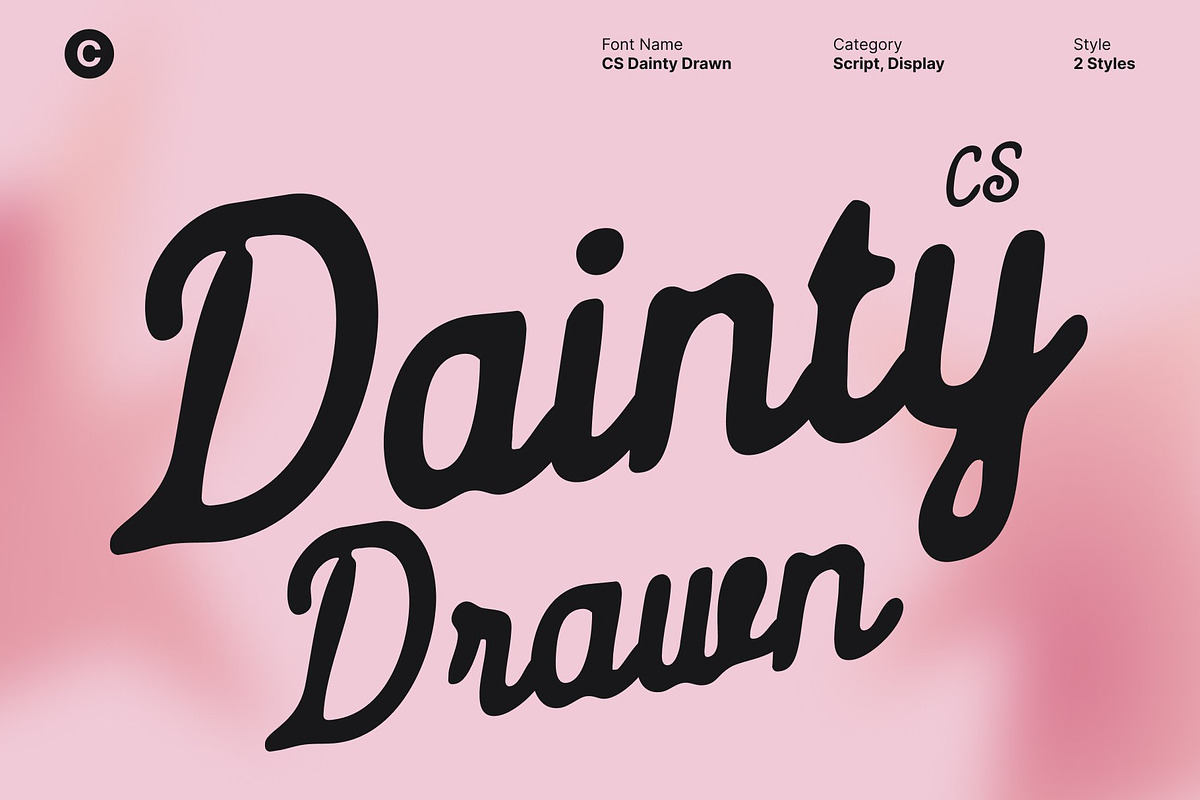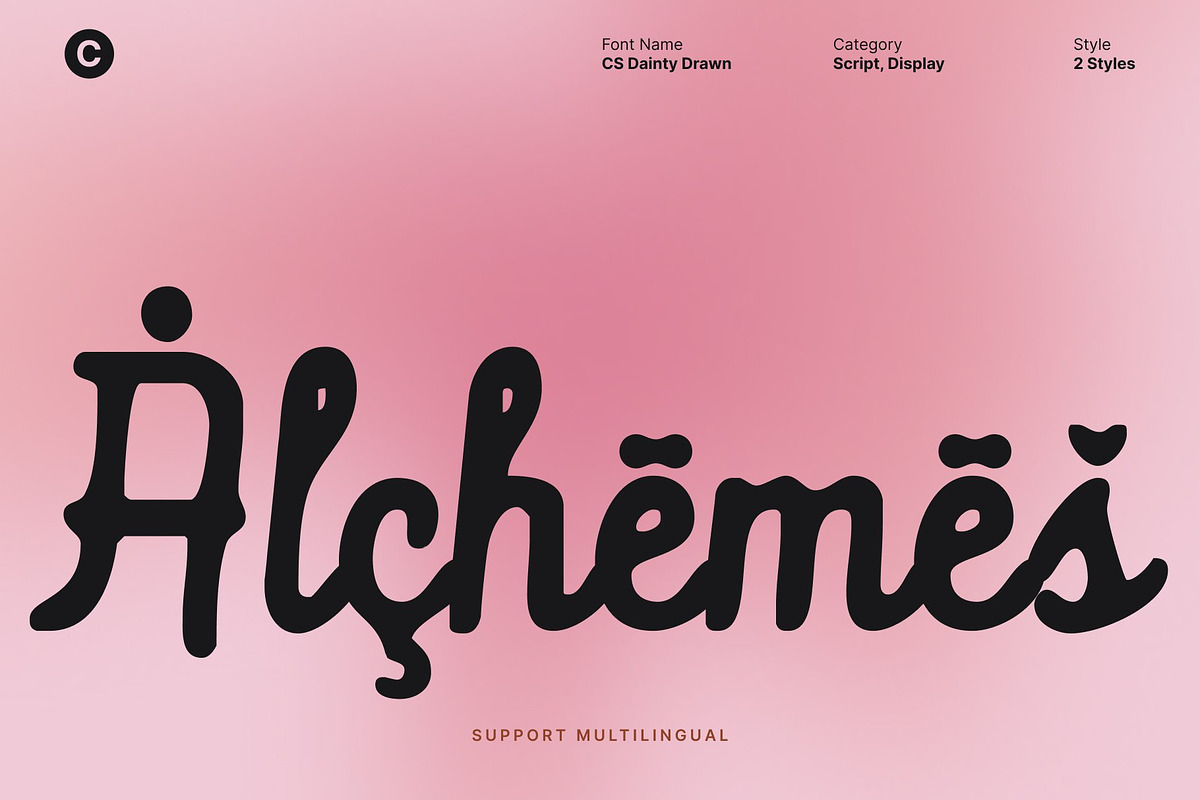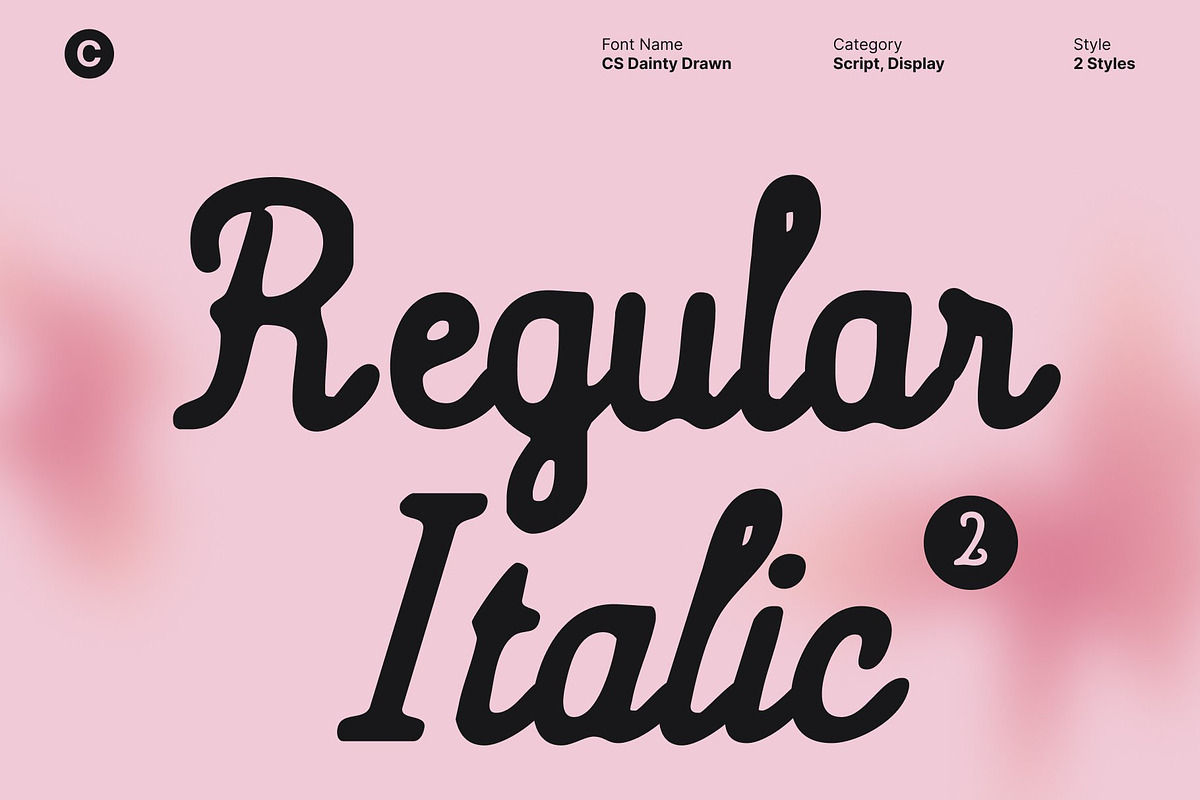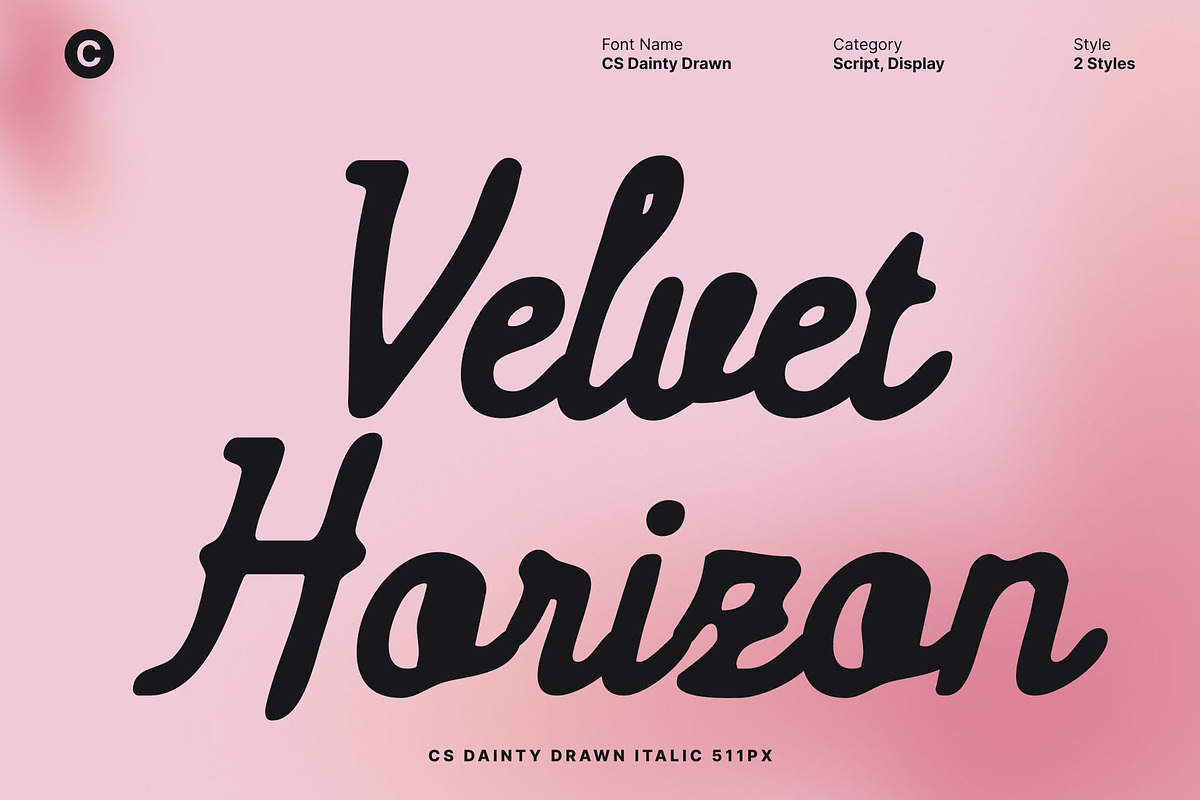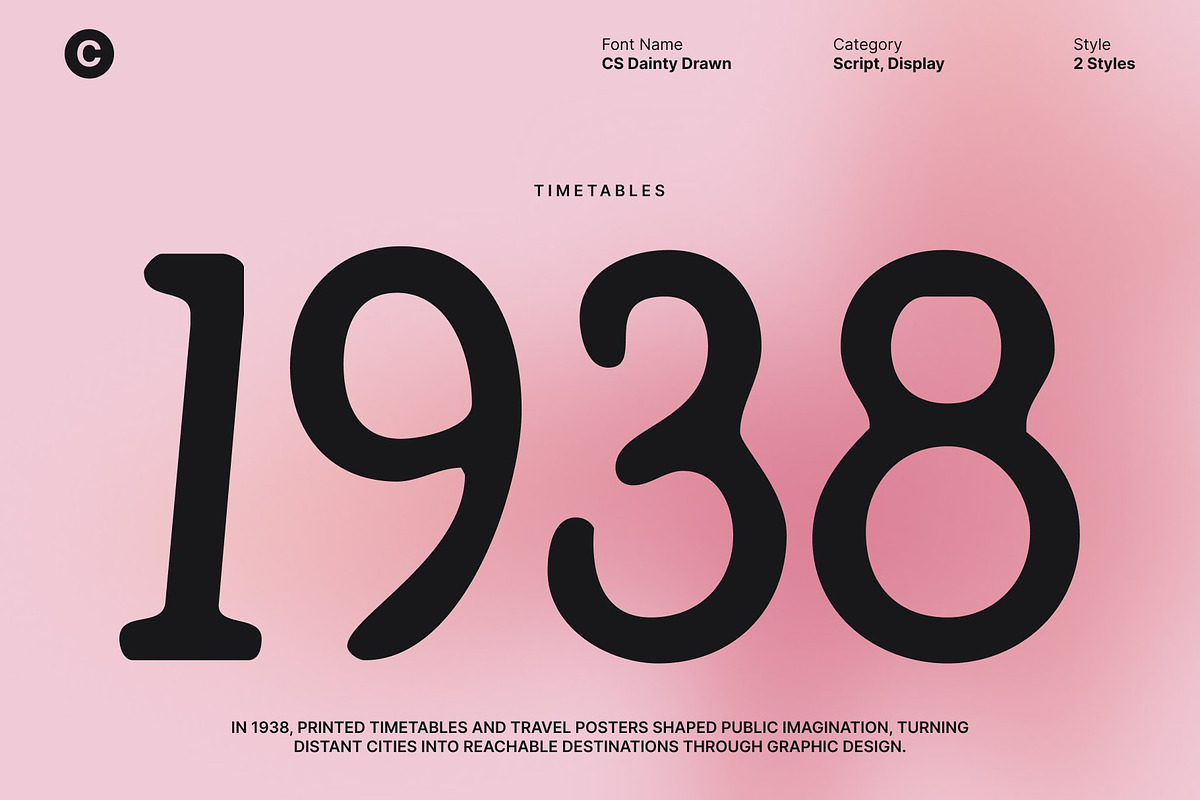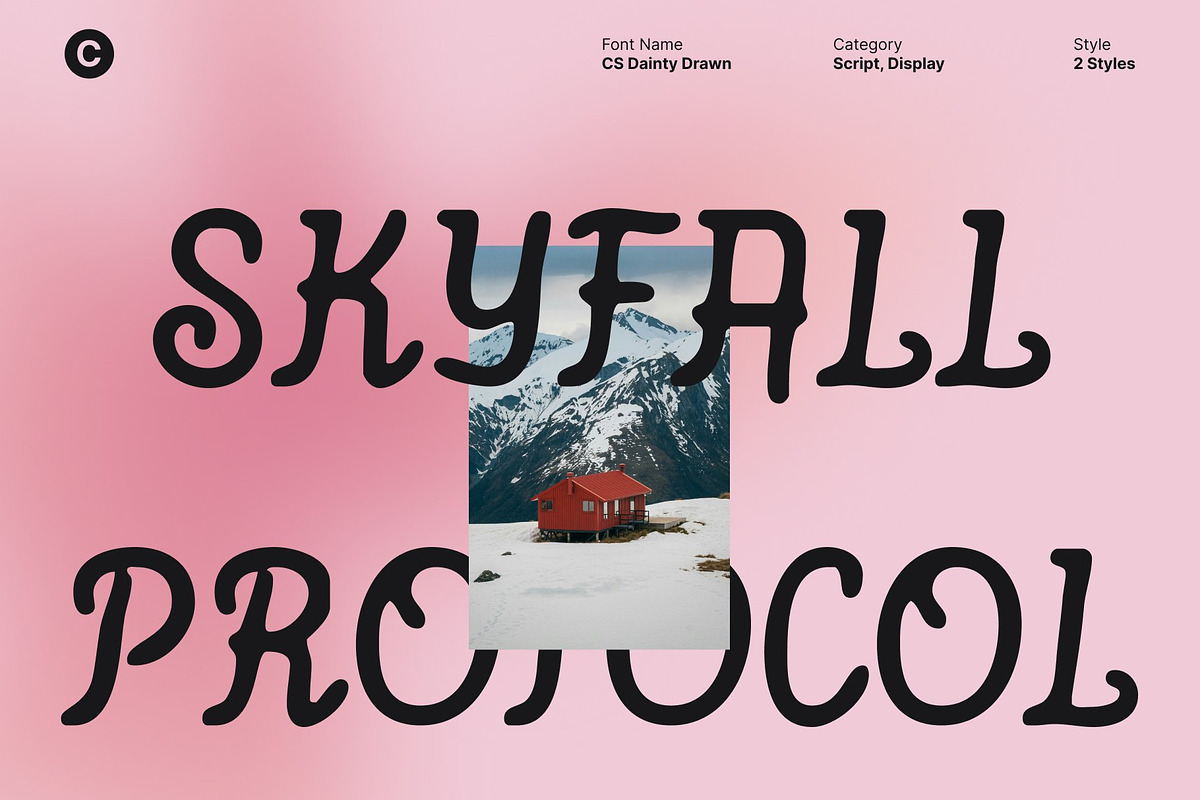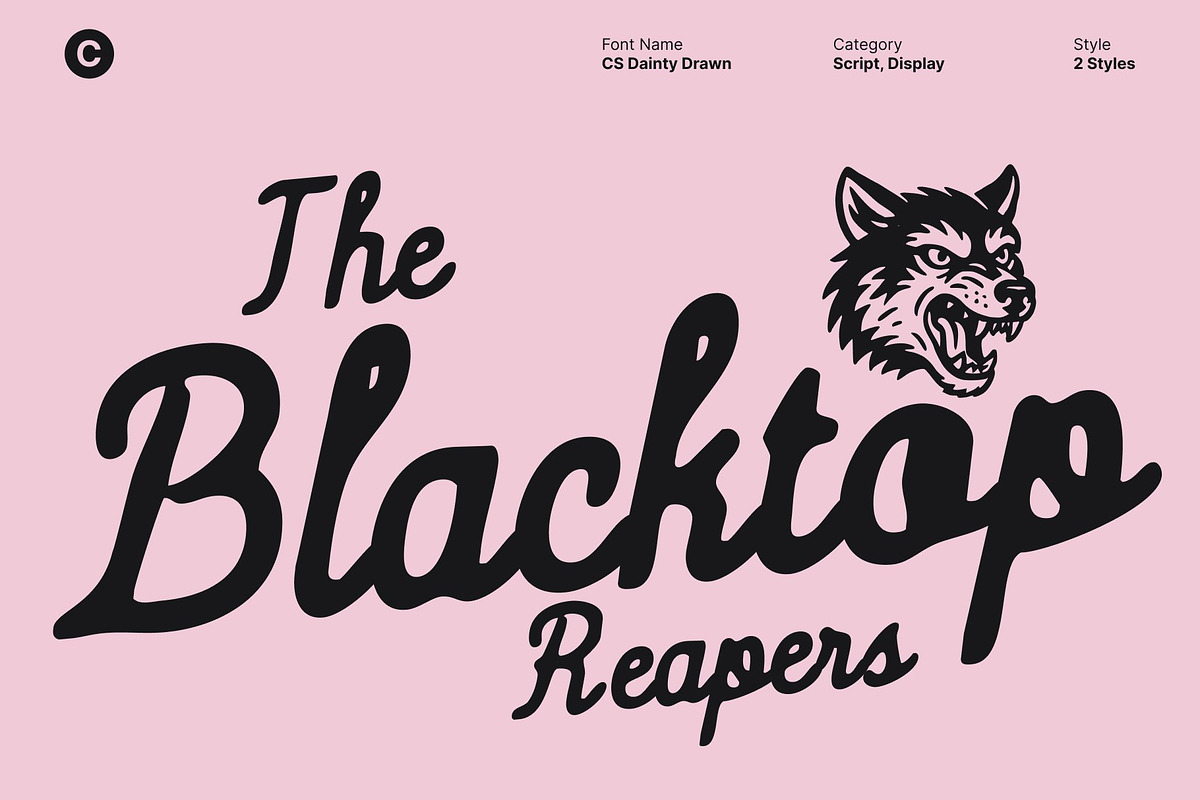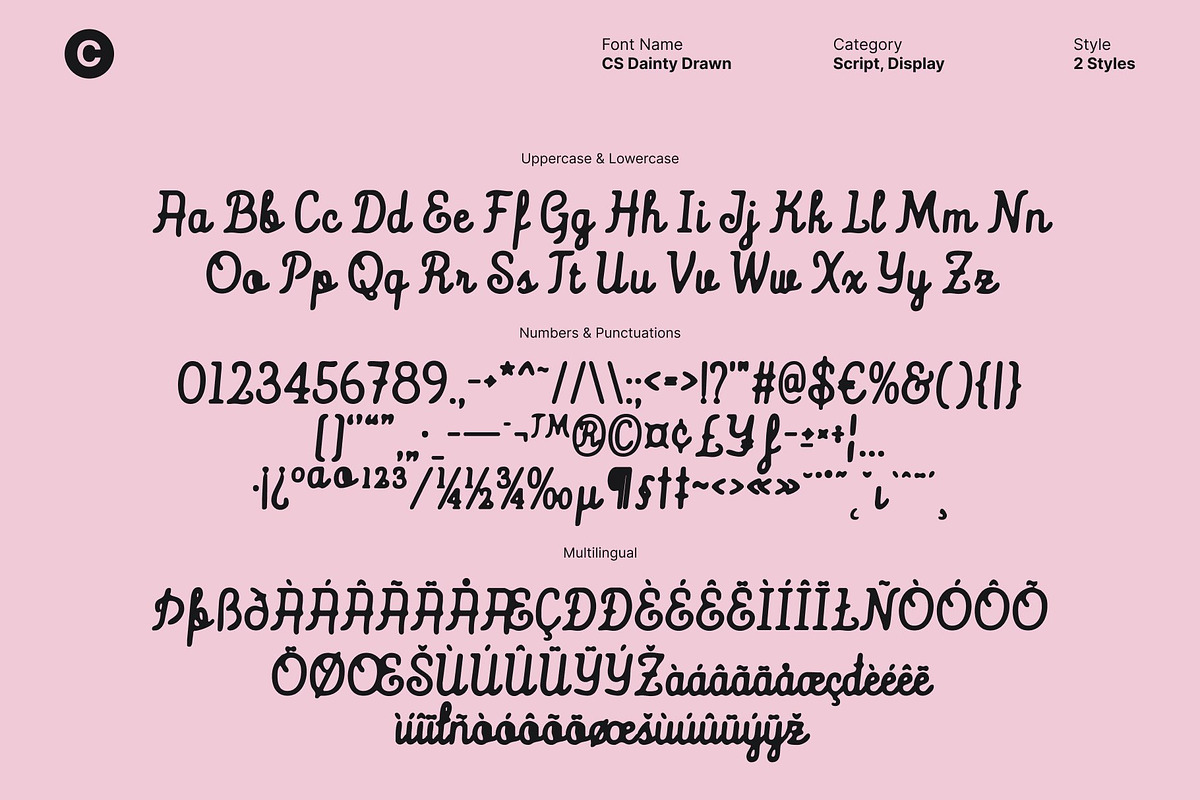
CS Dainty Drawn
CS Dainty Drawn – Vintage Script Font with Hand-Drawn Elegance
Timeless Script with Classic Refinement This is a vintage script font that captures the beauty of classic lettering and old-world charm. Flowing strokes, graceful curves, and decorative flourishes give this font a refined and elegant personality, reminiscent of traditional signage and retro typography. Its balanced rhythm and smooth connections create a warm, nostalgic feel that instantly evokes a sense of history and craftsmanship.
Hand-Drawn Texture for Expressive Character The drawn texture adds subtle imperfections that enhance the font’s handmade quality. This organic detail brings depth and authenticity, making each letter feel personal and expressive rather than mechanically perfect. The texture softens the refined script, giving a welcoming and artistic touch.
Vintage Charm with Nostalgic Appeal Blending classic script forms with a hand-drawn finish, delivers an old-fashioned aesthetic that feels both elegant and approachable. It’s ideal for designs that aim to communicate tradition, warmth, and timeless style.
Perfect for Retro Posters and Nostalgic Branding This font works beautifully for retro posters, bar and café menus, packaging, invitations, and nostalgic branding. Its elegant script and expressive texture help create designs that feel authentic, charming, and rich with vintage character.
- CS Dainty Drawn Regular
- CS Dainty Drawn Italic